The use of a term can sometimes be confusing. We are familiar with the term font when talking about the type of letters used in writing. However, when we involve in the graphic design industry, especially typography, we come across the term typeface. Both of them are not synonymous, yet they are used interchangeably. Typeface and font have distinct definitions, especially when we analyze them on a technical level.
The Popularity of Typeface and Font
No one can deny that the word font is more familiar than typeface to public ears. Only people who learn or are involved in graphics, typography, or type design will understand the distinction between typeface and font. Also, the word processing app and software, especially Microsoft Word, help popularize the font term. The software provides you with a Font Menu bar to compose your document.
The use of the term makes sense since composing a document uses one font at a time, regardless of the multiple fonts you use later. For example, you use 14 pt Times New Roman bold in the title, while for the body text, you use 12 pt Times New Roman. It means you have used two different fonts with the same typeface. People who only use it will never care about the difference between the terms. They only care about how the text will be good to look and appear to the reader.
What is Exactly Typeface and Font?
Whether typeface or font has the same importance level in design and branding. Some people will not even care about the difference. Most of them tend to use the two terms interchangeably. But, as a designer, you should understand the difference between the two to produce proper and better work.
What is Typeface?
Speaking in classification level, typeface can be considered as a type family. It is a set or collection of related fonts (letters and other characters) with the same style and features/characters. These characters include the presence and lack of serif, the letter’s weight and balance, spacing, the height difference between the uppercase and lowercase, and so on. From those characteristics, we usually use four of the most common typeface styles, serif, san serif, decorative, and script.
Serif Typeface
Among typeface styles, serif is the oldest one. Serif means every letter in the typeface has an extra stroke on the ends, making them have a sophisticated and classic feel. It was developed in the 15th century by Nicolas Jensen. Meanwhile, Garamond is the most well-known old serif style, named after the 16th-century Parisian engraver Claude Garamond. This typeface generally appears on body text and book publishing.
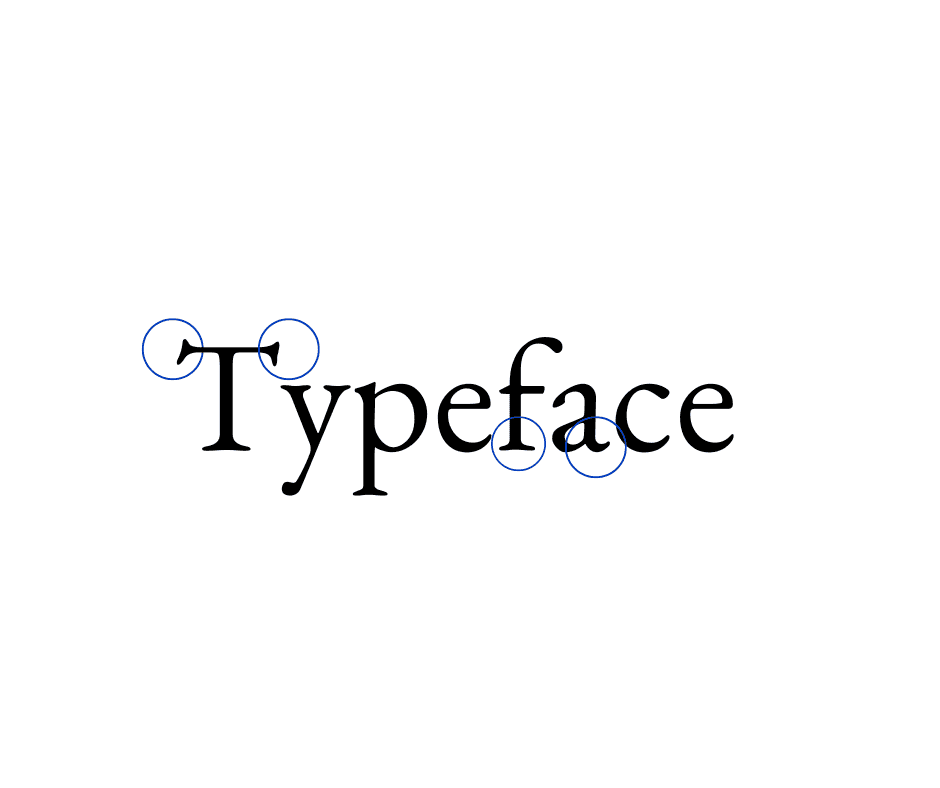
Times New Roman is another example of a serif typeface with a more transitional style. You find it in the plain text reading for its efficiency in using space. Compared to old-style serifs, these transitional serifs tend to have more contrasts between stroke thickness and wider.
San Serif Typeface
In contrast with serifs, san serifs are typefaces without serifs or extra strokes at the ends, making them more modern, informal, and minimal. Thus, they tend to look clean yet relaxed. Helvetica and Arial are well-known and commonly used typefaces. While both are san-serif, they have very different characteristics. Arial is fuller and softer, with terminal strokes cut on the diagonal. Meanwhile, Helvetica is dense with high x-high and tight spacing between the characters.
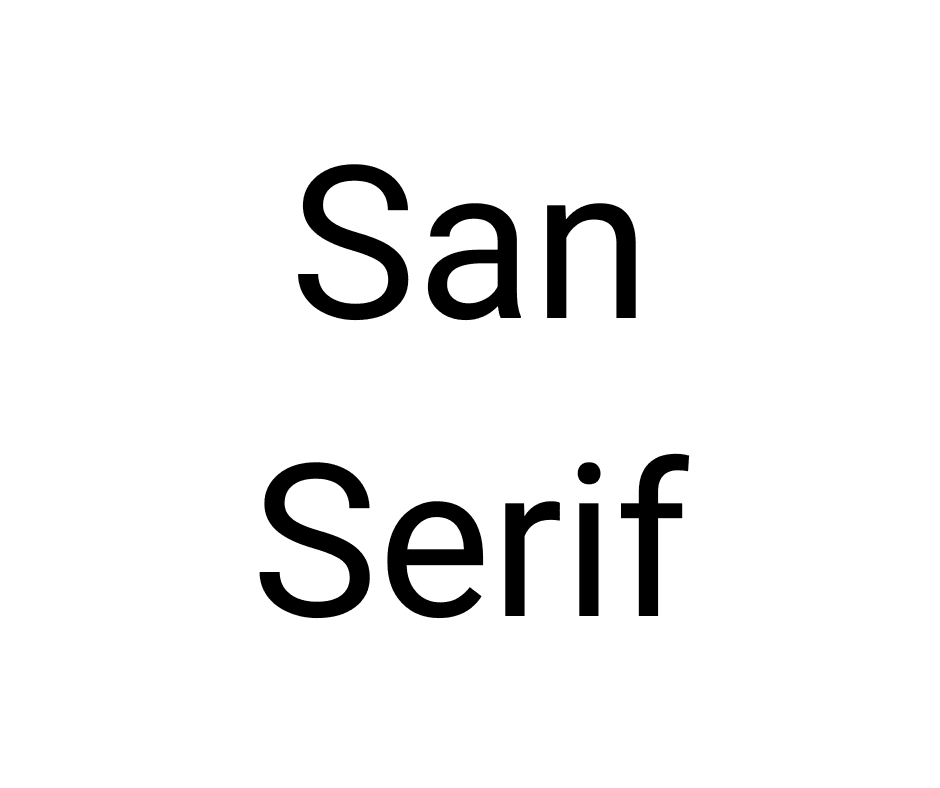
Decorative Typeface
Decorative typefaces are more fun and relaxed without the standard rule applied to serif and san serif. However, the fonts of this family are not suitable for use in body text. They can be distracting and hard to read, especially in small sizes. Even so, they will be the attention grabber you need for headlines, outdoor signs, or typographical art. However, never use them on menus or brochures.
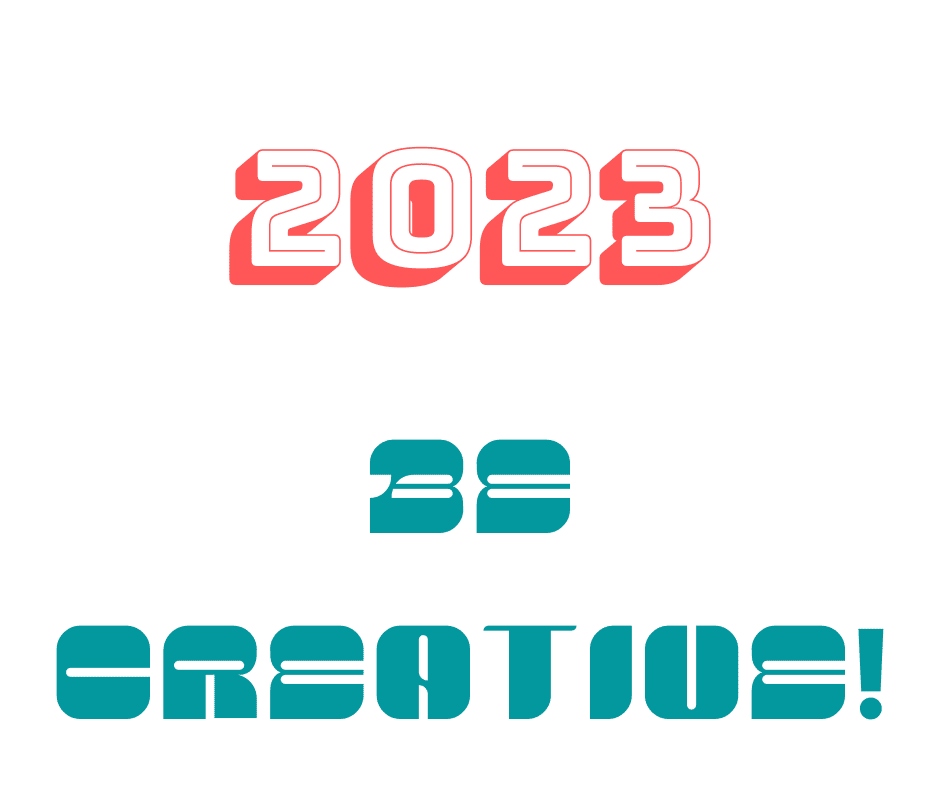
Script Typeface
To imitate handwriting strokes in your text, you can pick one of the fonts in script typefaces. Scripts are the best choice to communicate a handcrafted and personalized type for the brand because they look like cursive handwriting. Scripts are like decorative typefaces that are not suitable for body text. The best use for scripts is for logos, headlines, or signage. Try to use Kuenstler Script for a formal script or Brush Script, Kaufmann, and Mistral for a casual script.
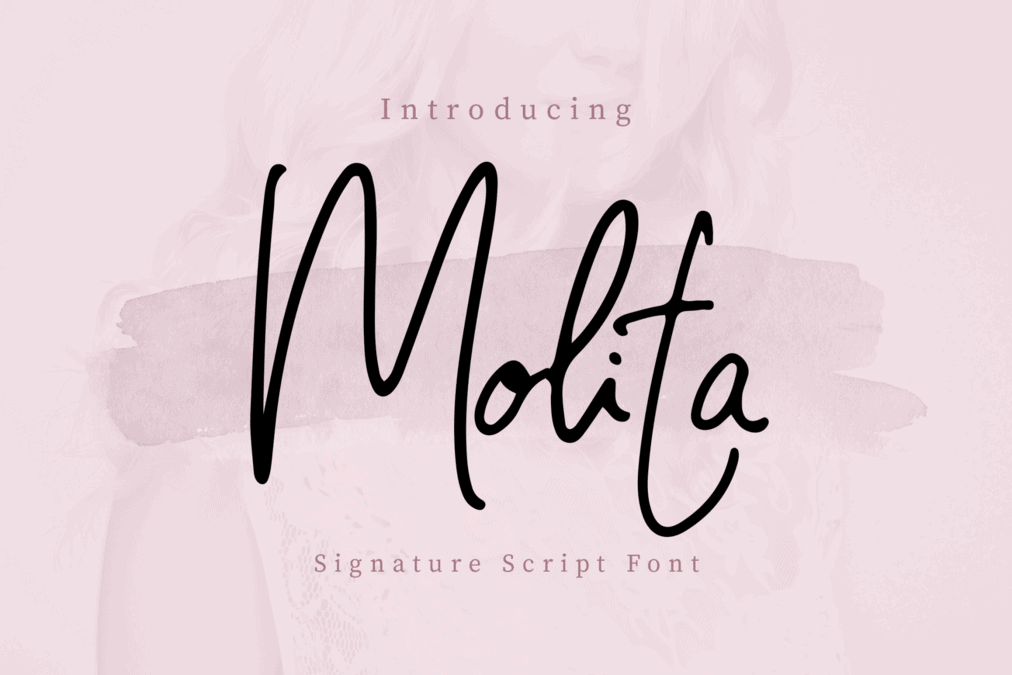
What is Font?
Font refers to printable and displayable typography in a specific style, size, and weight. When you find a typeface followed by the word italic, bold, roman, regular, thin, light, etc., that’s a font. The quickest way to see the difference between typeface and font is just by opening your front bar. However, this is the easy way to differentiate them. Let’s check the table below!
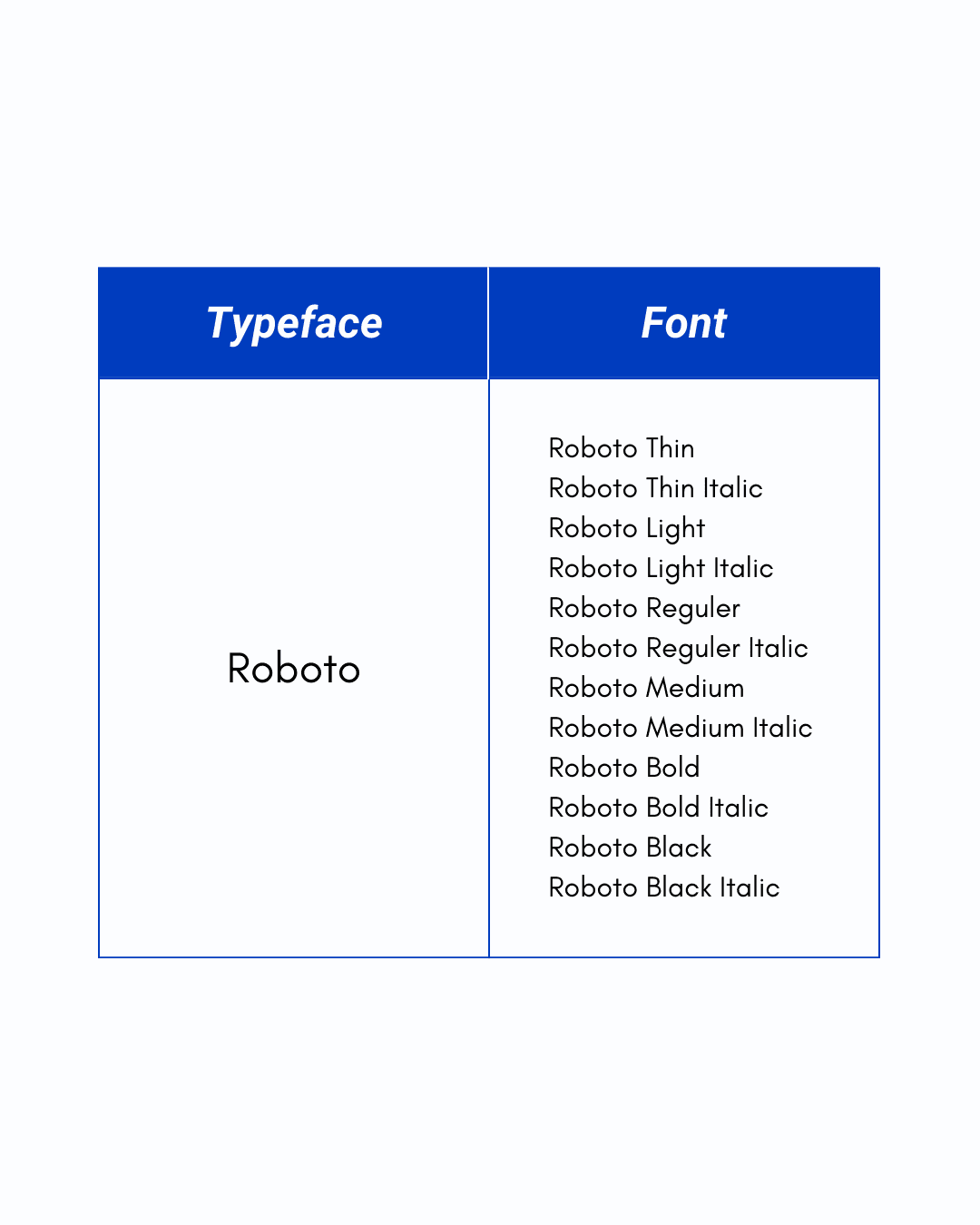
Even though we use the same typeface, it’s not necessarily the same type of font used. Therefore, when you design, especially for clients, make sure you don’t choose the wrong font because each font can give a different impression.
Typeface and Font, What Matters in the End
Some people may say typeface when what they mean is a font, and most people say font what they mean is a typeface. In the end, when you understand what they mean, the work will do. However, for people involved in the design, knowing the difference in the meaning of the terms typeface and font will really help in producing better work.